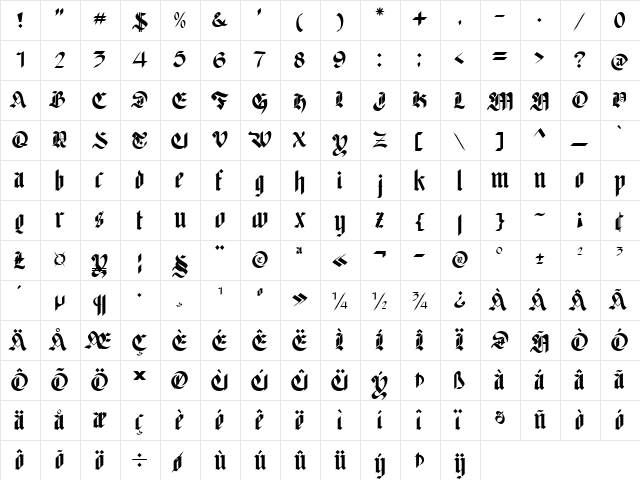
Redro tall Regular
Design Context for Redro tall Typeface
Redro tall is a composed and adaptable typeface that performs quietly and consistently across a wide range of design contexts.